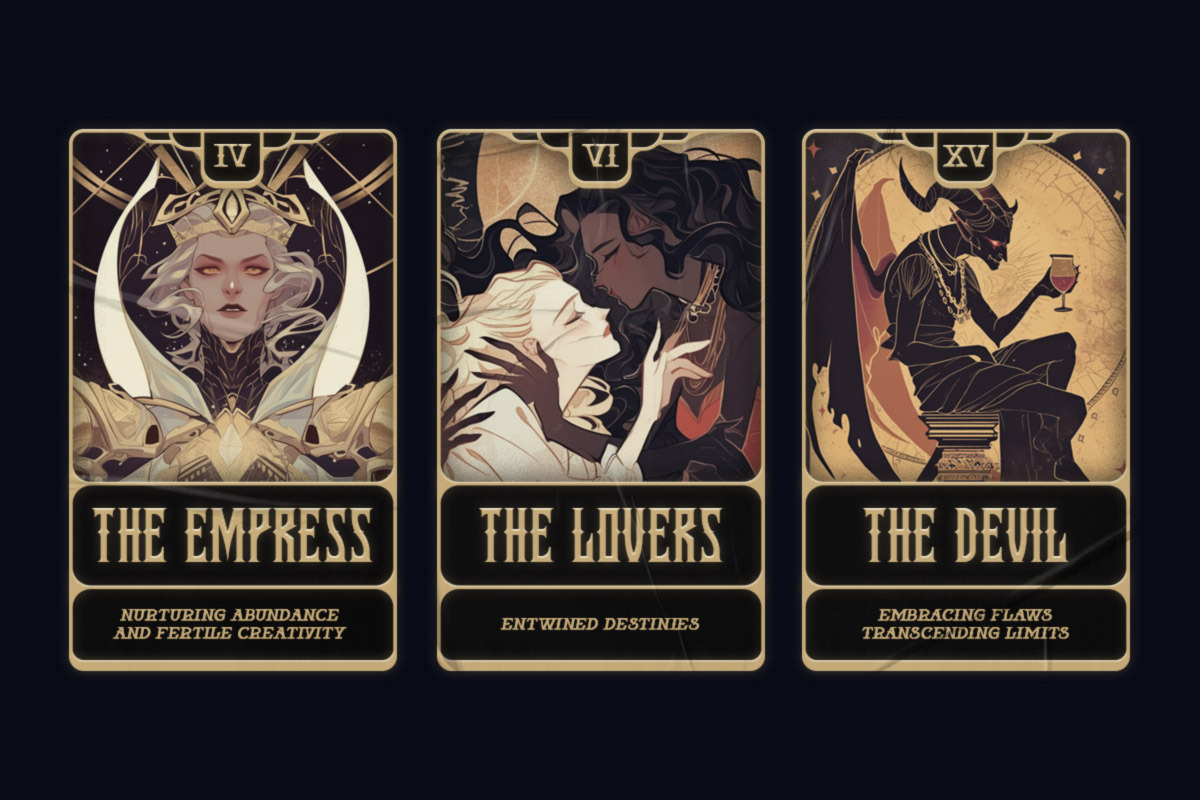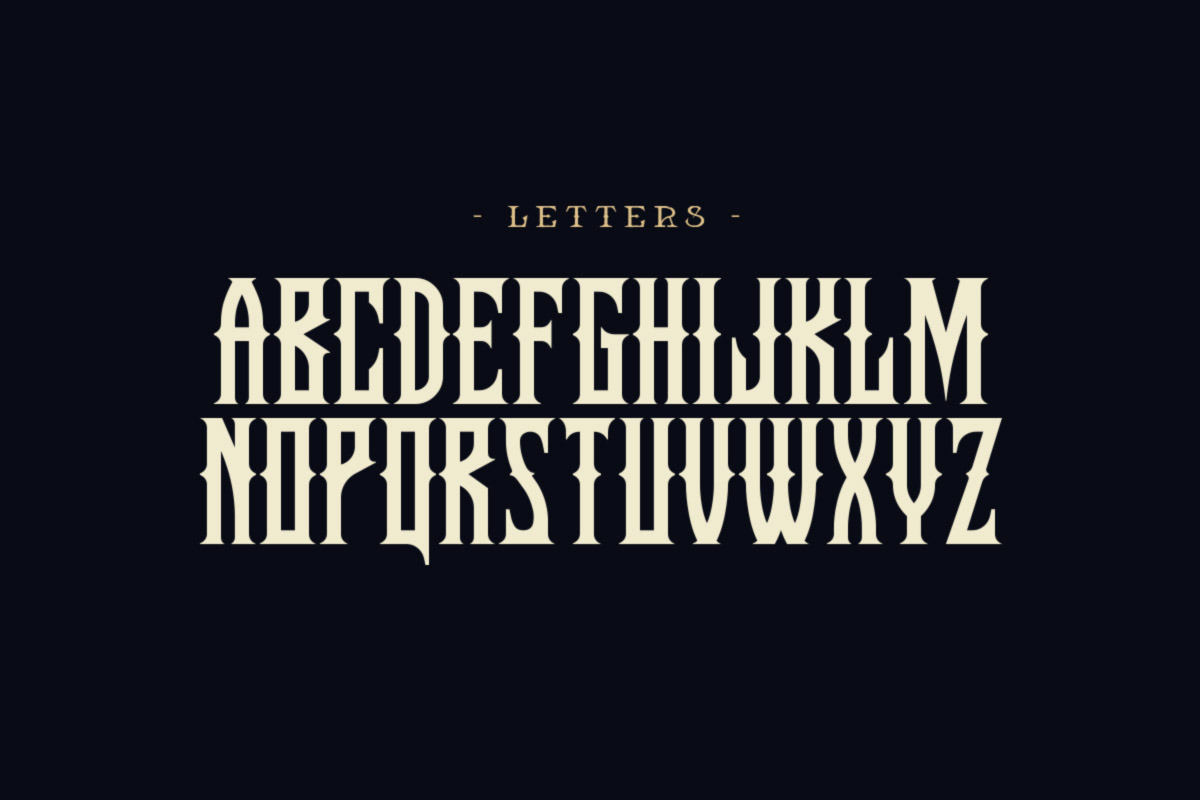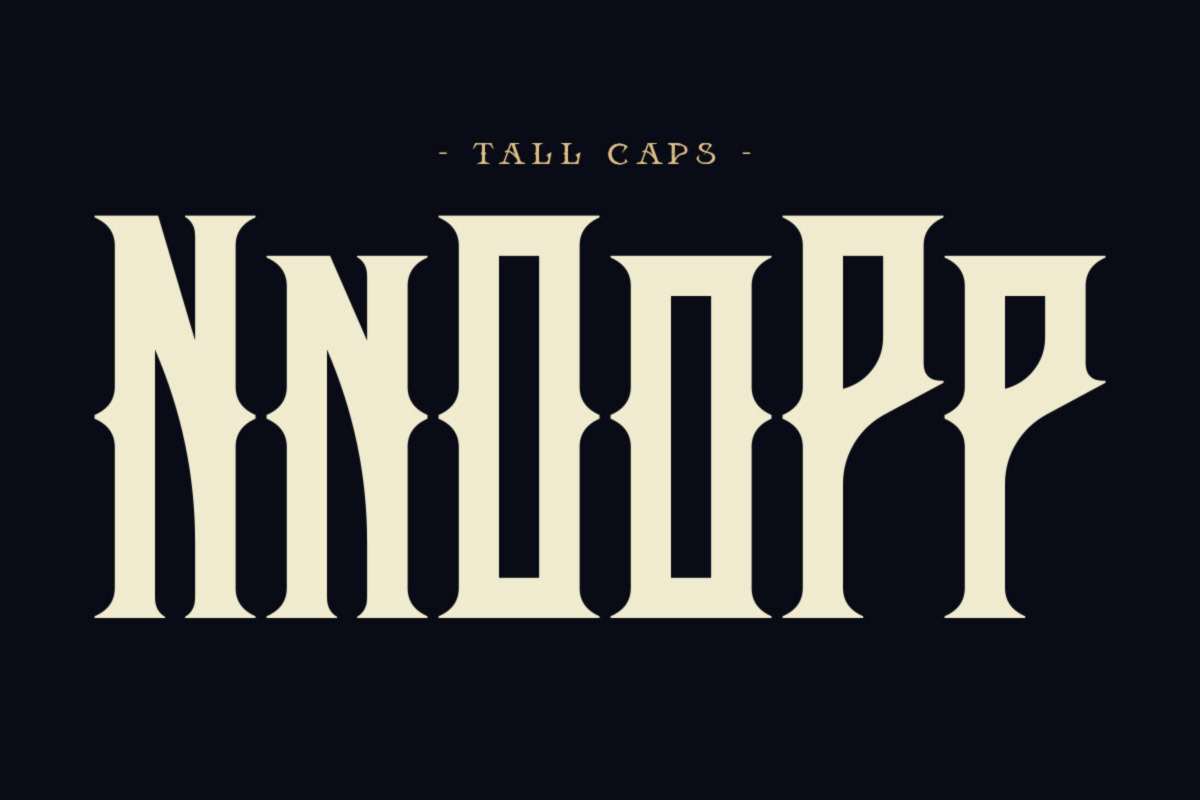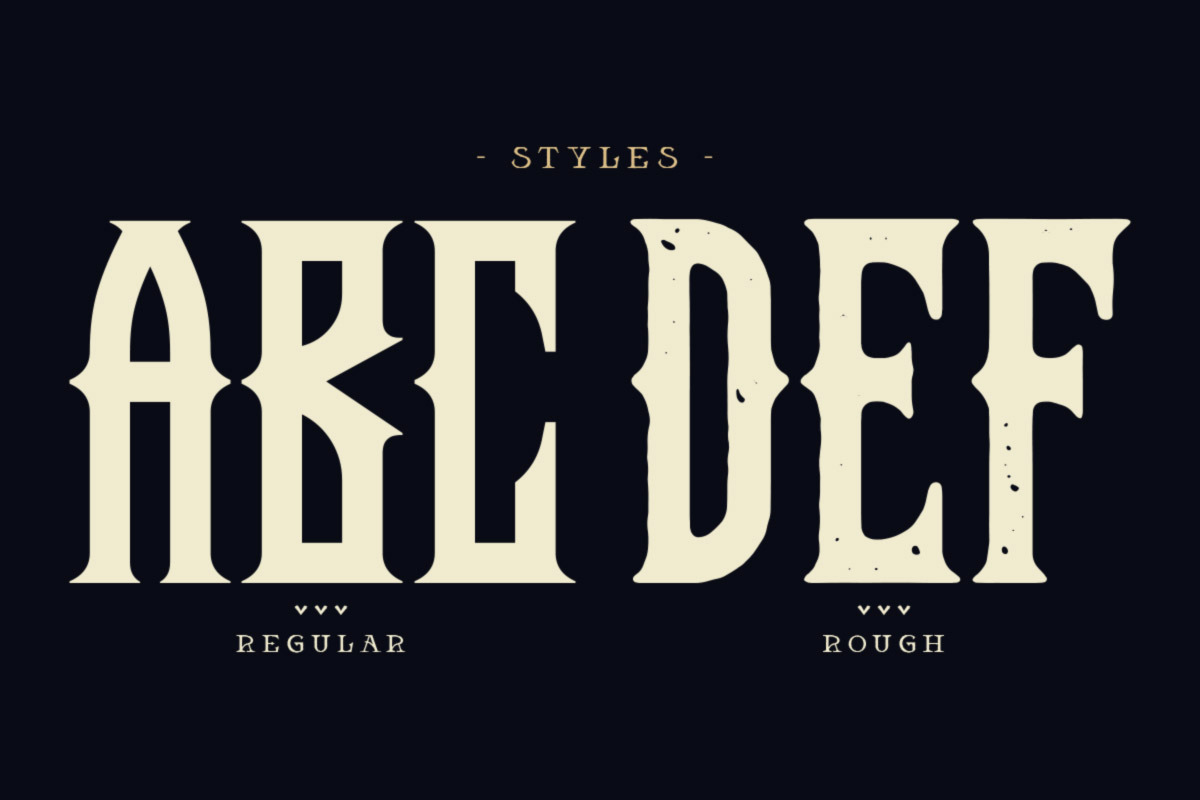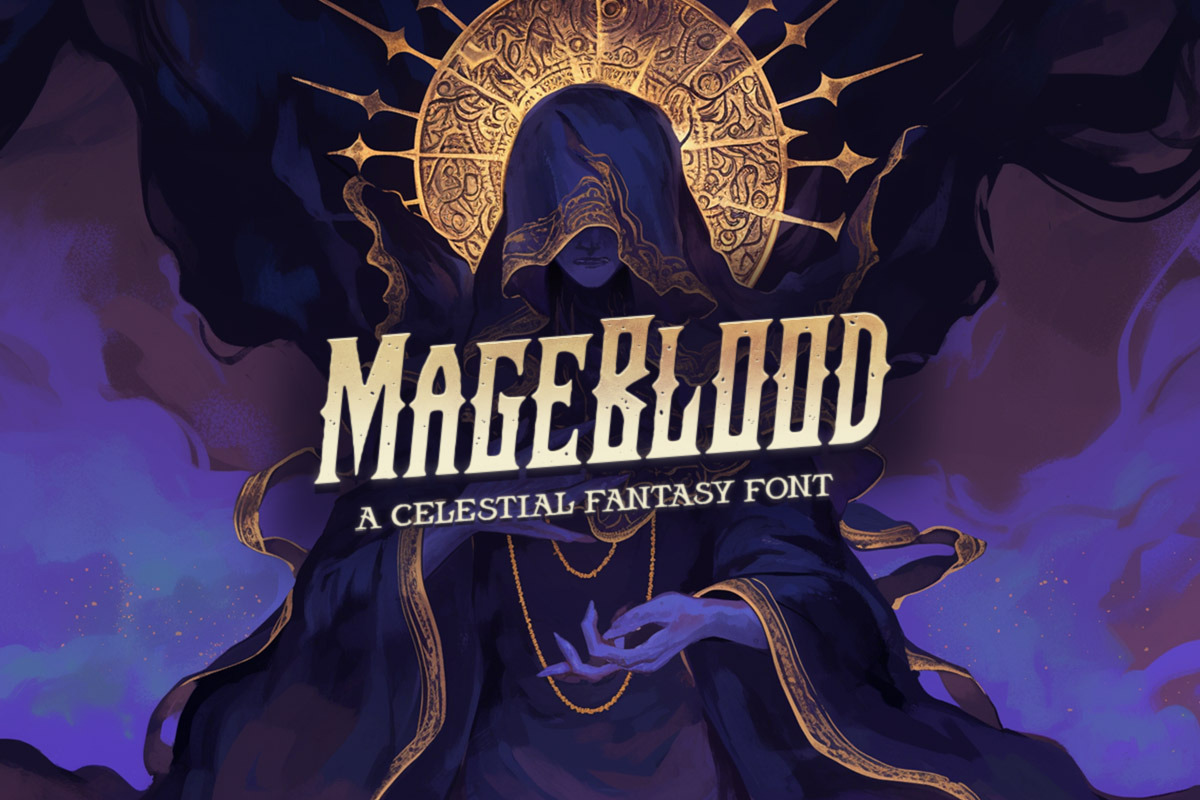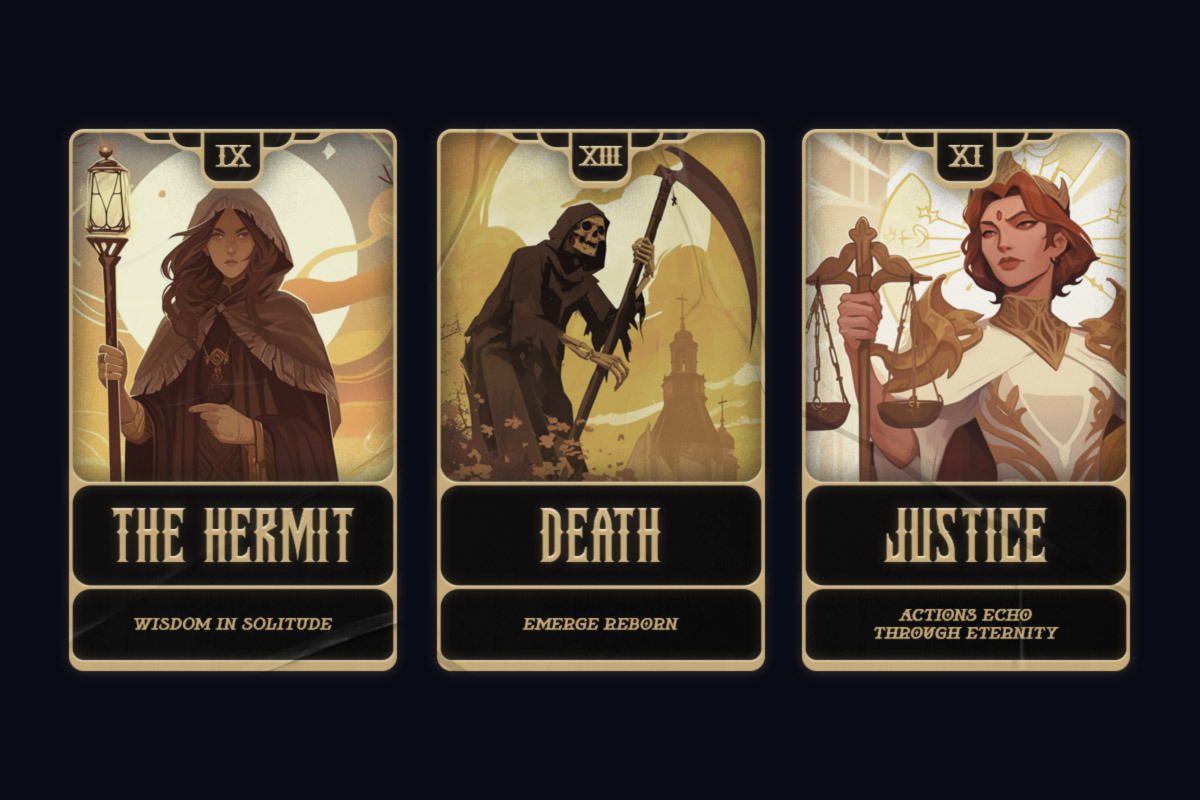
MageBlood Typeface
MageBlood is a fantasy font full of spurs and mystique. Toggle Caps Lock for taller uppercase letters. Comes in regular and rough styles.